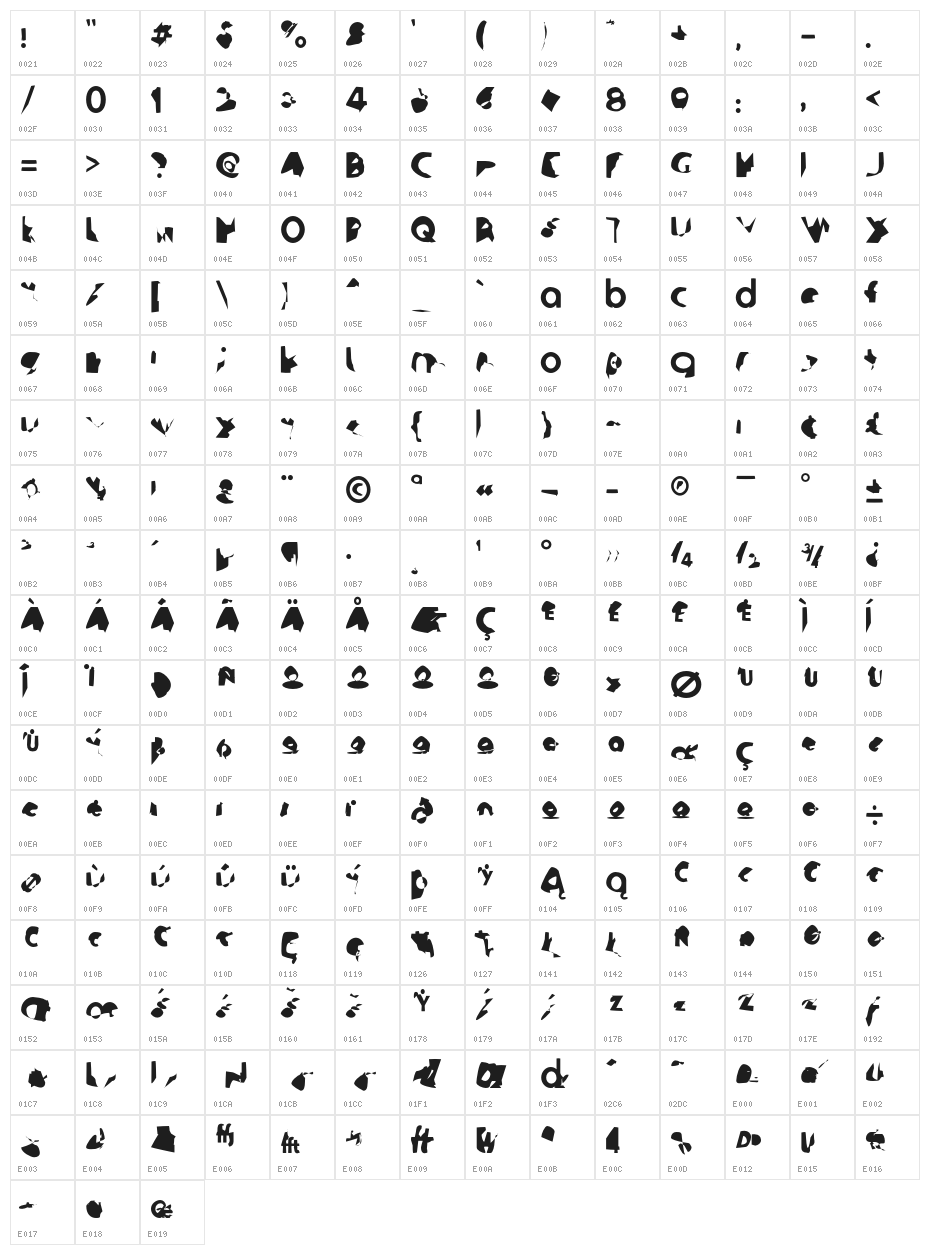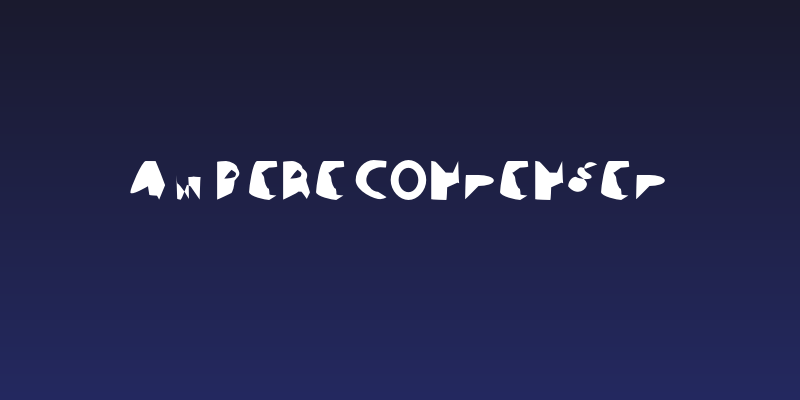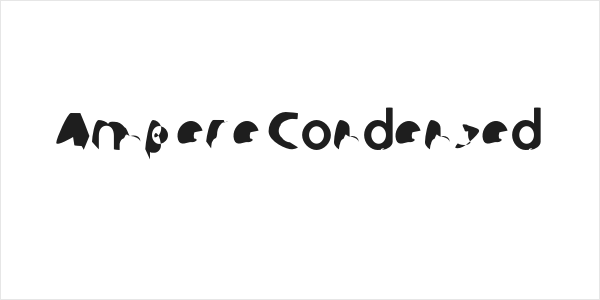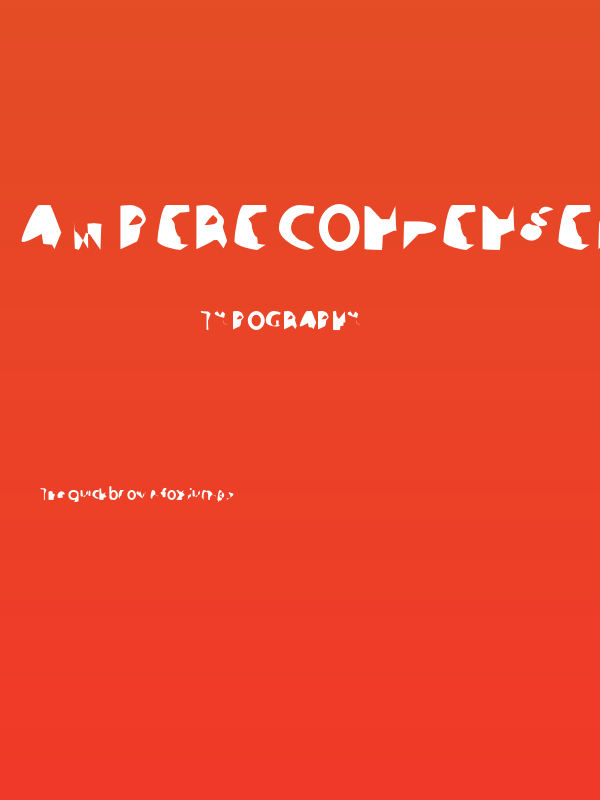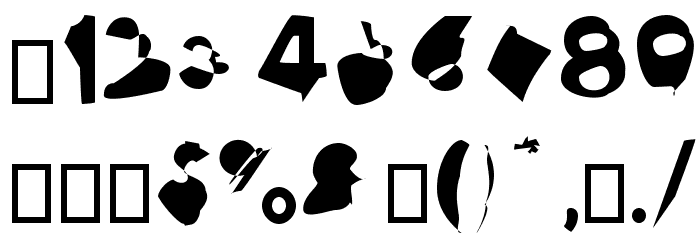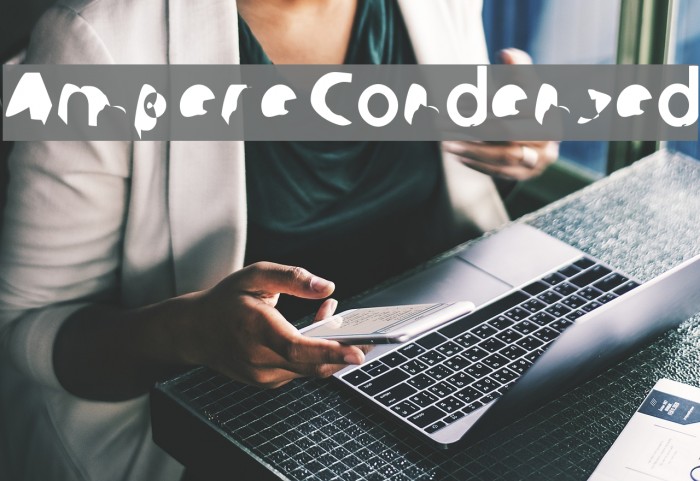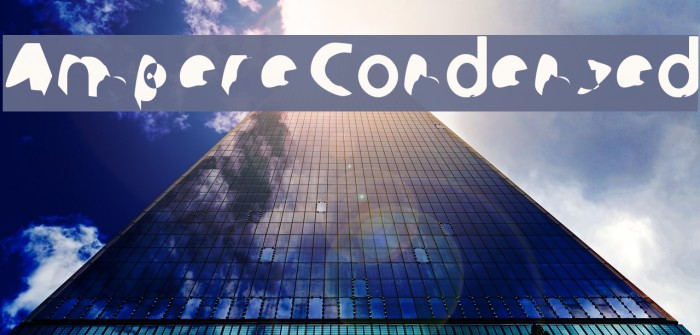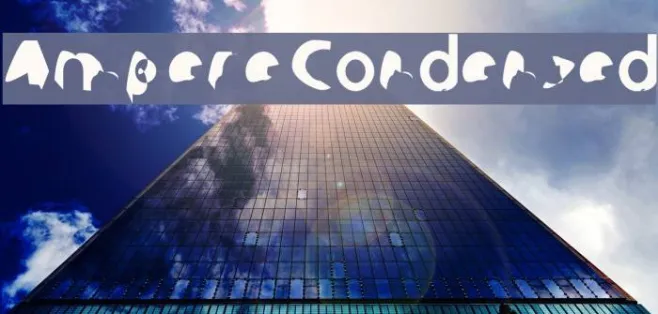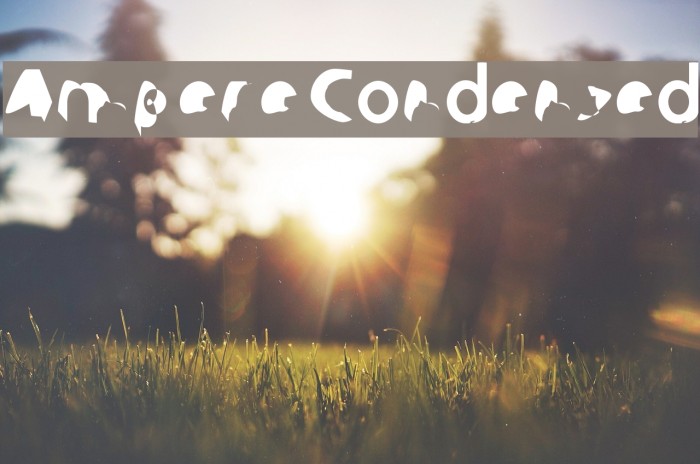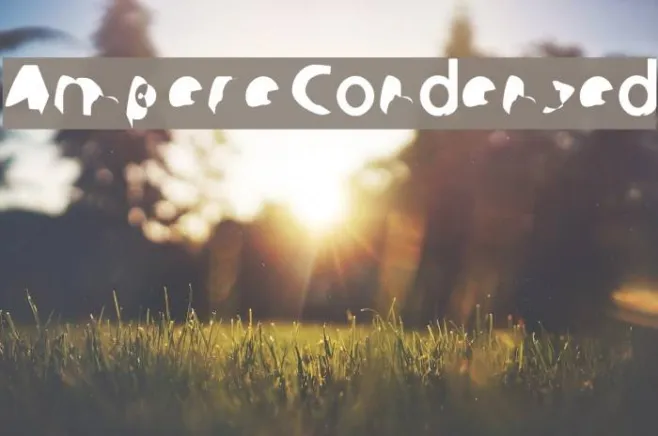
Ampere Condensed Font
Ampere Condensed Description
This font features a highly stylized and fragmented design, with each character appearing as if it has been shattered or broken apart. The bold, geometric shapes create a striking visual impact, making it ideal for attention-grabbing designs. The uppercase and lowercase letters maintain a consistent style, with sharp angles and irregular forms that suggest movement and energy. The numbers and special characters follow the same fragmented aesthetic, ensuring a cohesive look across all text elements. This font's unique appearance makes it suitable for modern and edgy design projects.
| Proposed Projects | Ideal for album covers, posters, and branding projects that require a bold, unconventional look. |